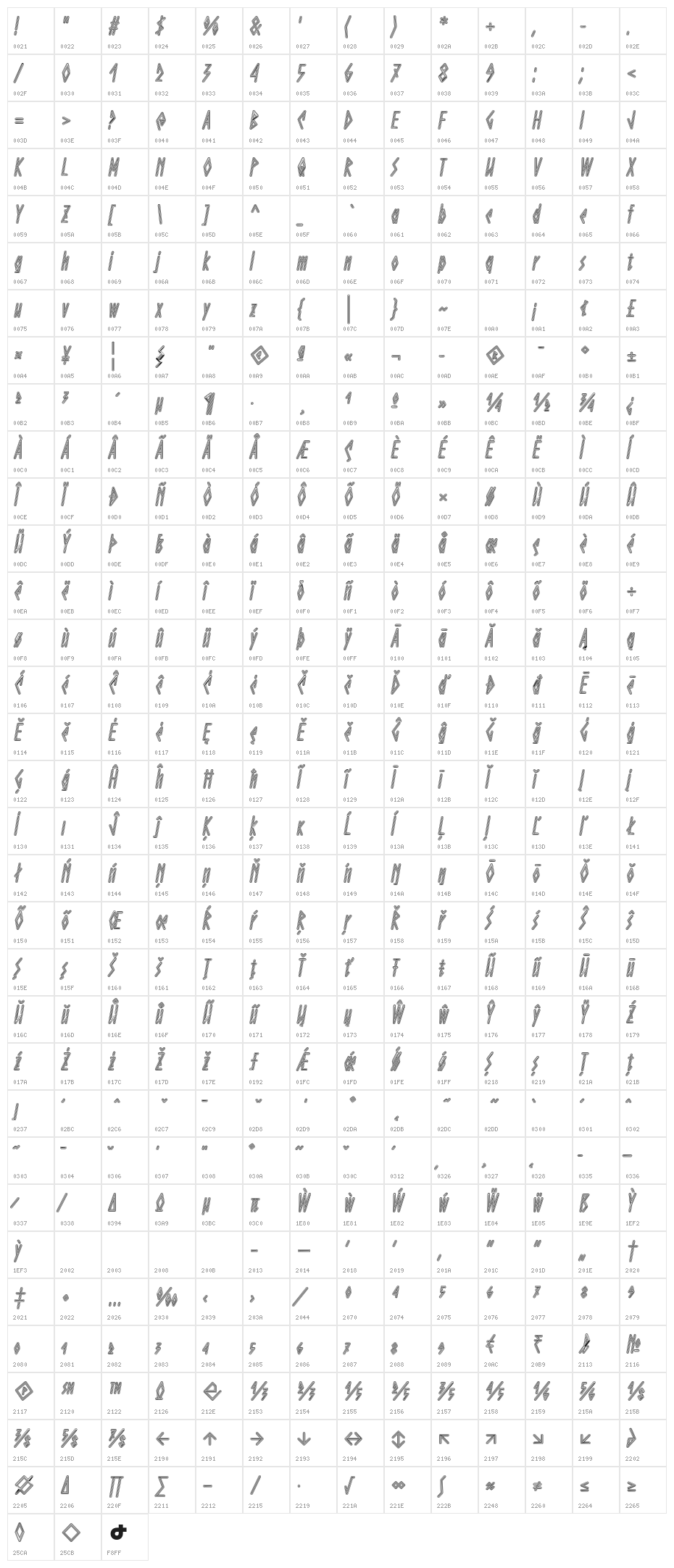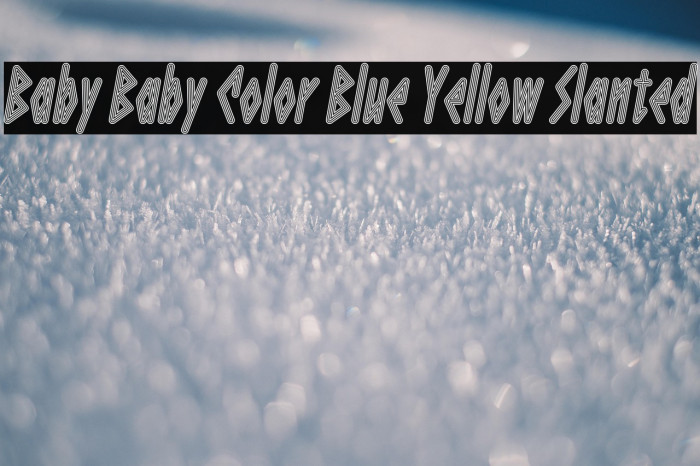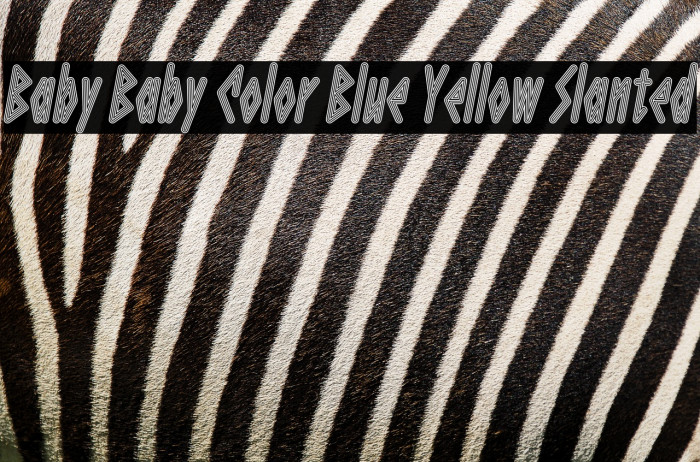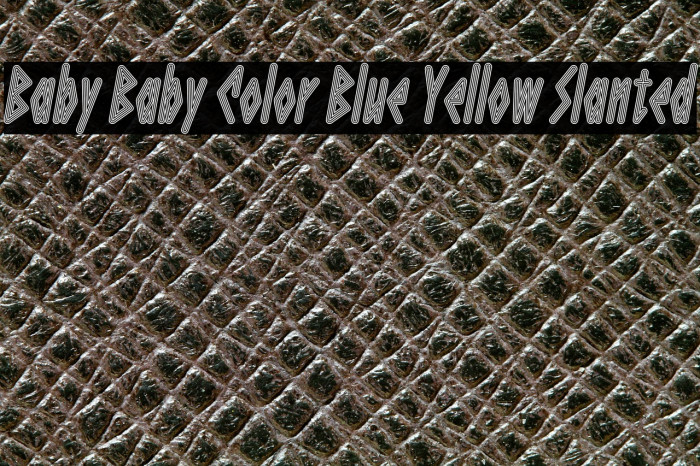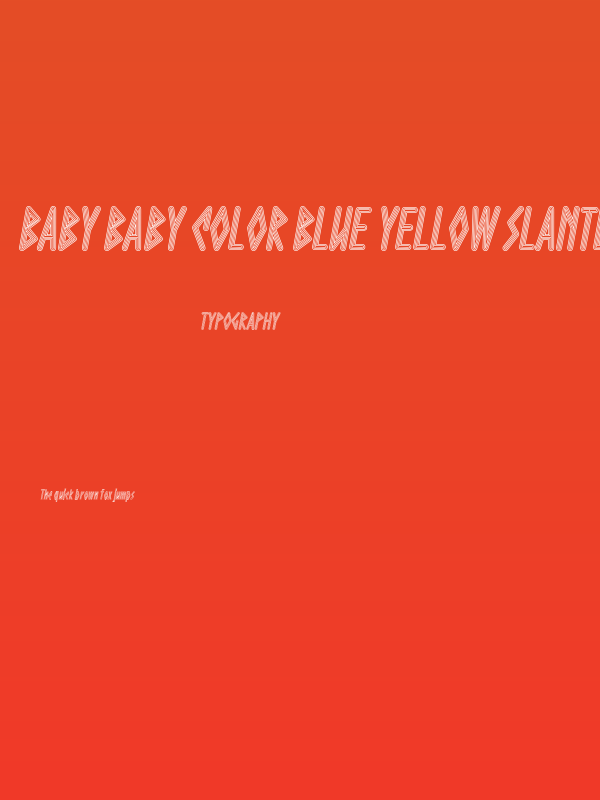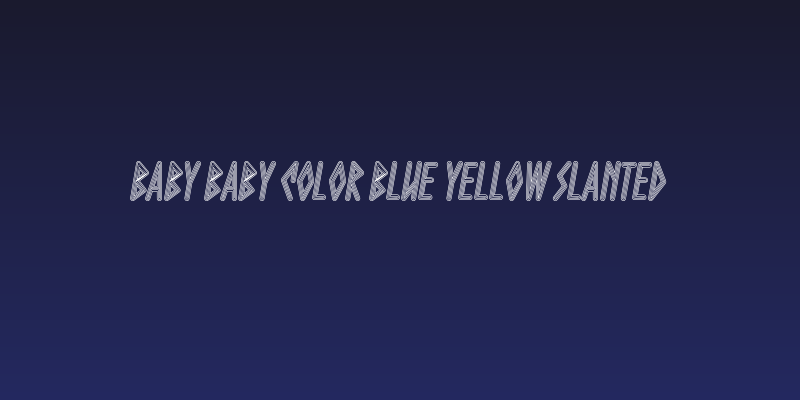
Baby Baby Color Blue Yellow Slanted Font
Baby Baby Color Blue Yellow Slanted Description
This font features a unique, playful design with a slanted orientation, giving it a dynamic and energetic feel. The characters are outlined with multiple strokes, creating a layered effect that adds depth and visual interest. The uppercase and lowercase letters maintain a consistent style, with angular and geometric shapes that are both modern and eye-catching. The numbers and special characters follow the same design principles, ensuring a cohesive look across all glyphs. This font's distinct style makes it suitable for creative and bold design projects.
| Proposed Projects | Ideal for children's book covers, playful branding, posters, and creative digital media. |